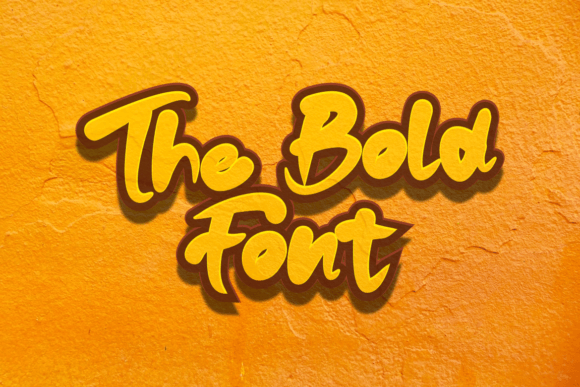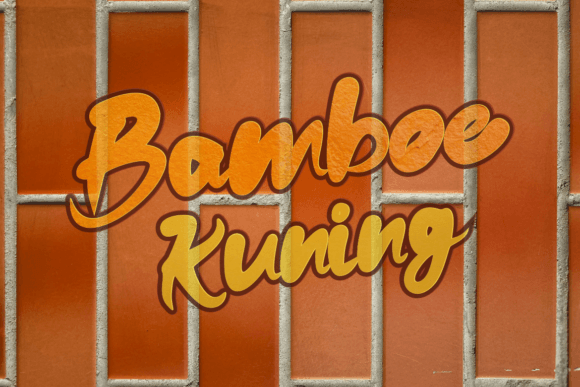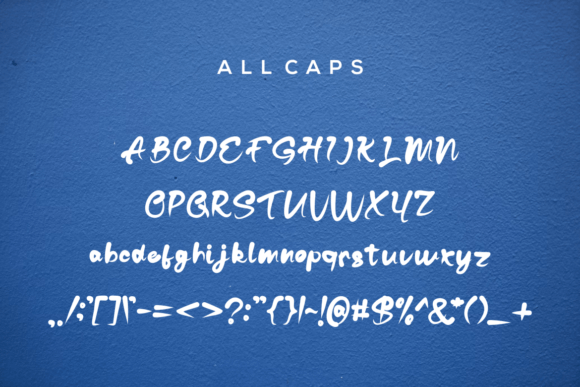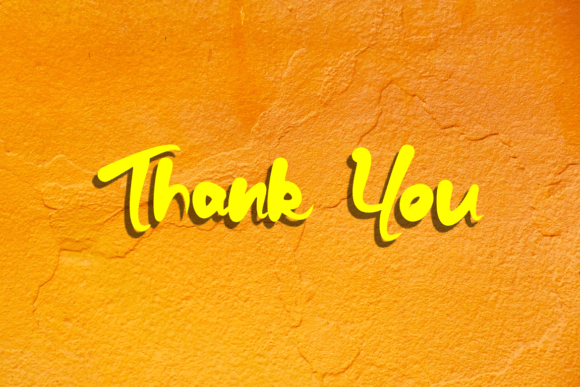
Bamboe Kuning Font: Elevate Your Designs with a Modern and Bold Display Font
In the world of typography, a font can make or break a design. For designers and crafters looking for a bold and authentic display font, **BamboeKuning-Bold Font** is an excellent choice. This modern font is suitable for a wide range of branding projects, including logos, t-shirt printing, e-sport designs, and more. In this article, we’ll explore the features and benefits of Bamboe Kuning Font and how it can elevate your designs.
What is Bamboe Kuning Font?
Bamboe Kuning Font is a bold and authentic display font designed to make a statement. Its modern and sleek design makes it perfect for designers and crafters looking for a font that can add a touch of sophistication to their projects. The font’s unique style is inspired by the beauty of bamboo, with clean lines and a distinctive character that sets it apart from other fonts.
Key Features of Bamboe Kuning Font
- Bold and Authentic Design: Bamboe Kuning Font boasts a bold and authentic design that is sure to grab attention.
- Modern and Sleek: The font’s modern and sleek design makes it perfect for a wide range of design projects.
- High-Quality Typography: Bamboe Kuning Font features high-quality typography, ensuring that your designs look professional and polished.
- Versatile: The font is suitable for a wide range of design projects, including logos, t-shirt printing, e-sport designs, and more.
Benefits of Using Bamboe Kuning Font
So, why should you choose Bamboe Kuning Font for your design projects? Here are just a few benefits of using this amazing font:
- Adds a Touch of Sophistication: Bamboe Kuning Font adds a touch of sophistication to any design project, making it perfect for designers and crafters looking to elevate their designs.
- Grabs Attention: The font’s bold and authentic design is sure to grab attention, making it perfect for logos, headlines, and other design elements.
- Easy to Read: Despite its bold design, Bamboe Kuning Font is easy to read, making it perfect for body text and other design elements.
- Unique and Distinctive: The font’s unique style sets it apart from other fonts, making it perfect for designers and crafters looking to create something truly unique.
- Use it as a Headline Font: Bamboe Kuning Font is perfect for headlines and titles, where its bold and authentic design can really shine.
- Pair it with Other Fonts: The font pairs well with other fonts, making it perfect for designers and crafters looking to create a unique and cohesive design.
- Experiment with Different Sizes: Bamboe Kuning Font looks great in a variety of sizes, from small body text to large headlines.
In conclusion, **BamboeKuning-Bold Font** is a modern and bold display font that is perfect for designers and crafters looking to elevate their designs. Its unique style, high-quality typography, and versatility make it suitable for a wide range of design projects. Whether you’re creating a logo, t-shirt design, or e-sport design, Bamboe Kuning Font is an excellent choice. So why wait? Download Bamboe Kuning Font today and take your designs to the next level!